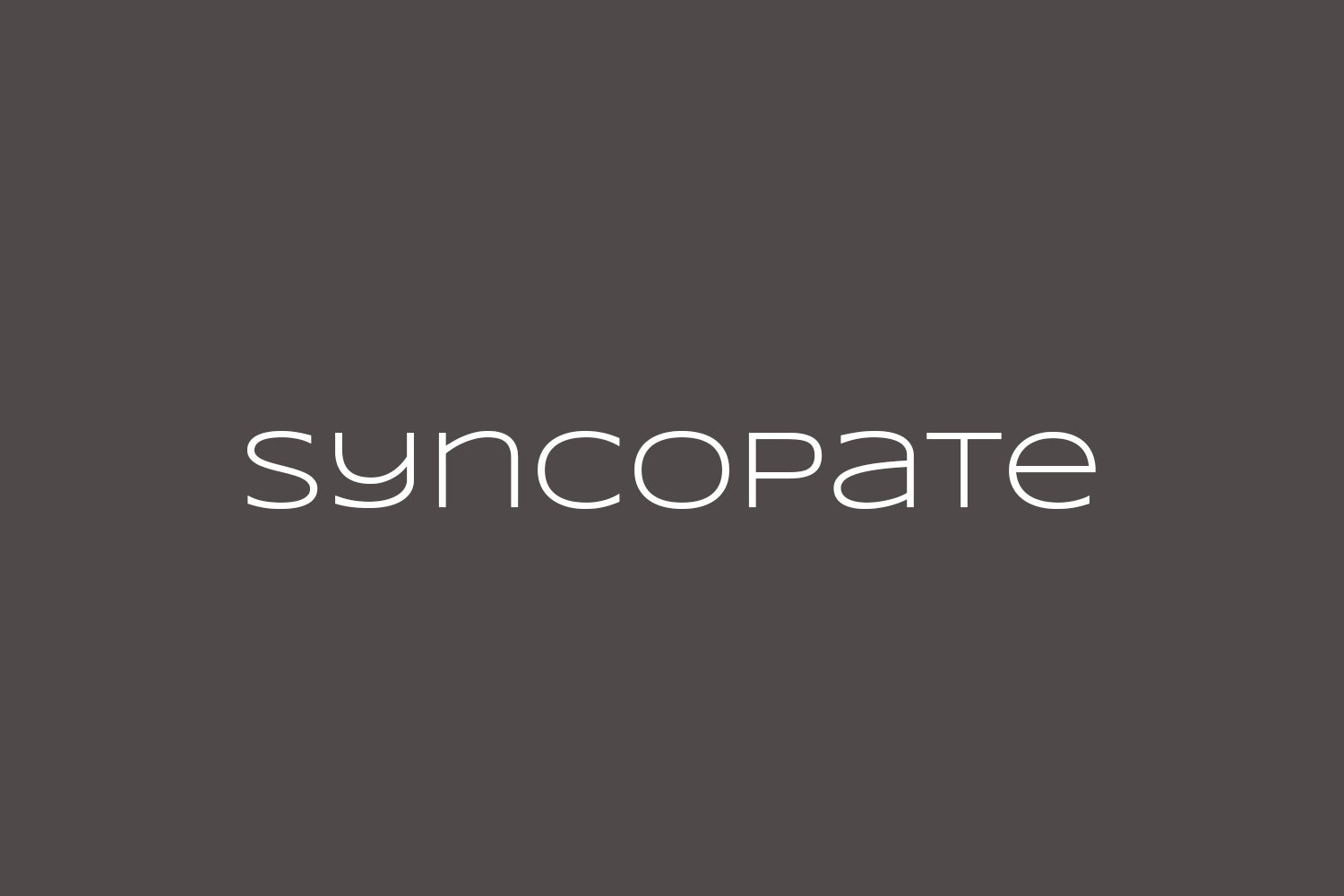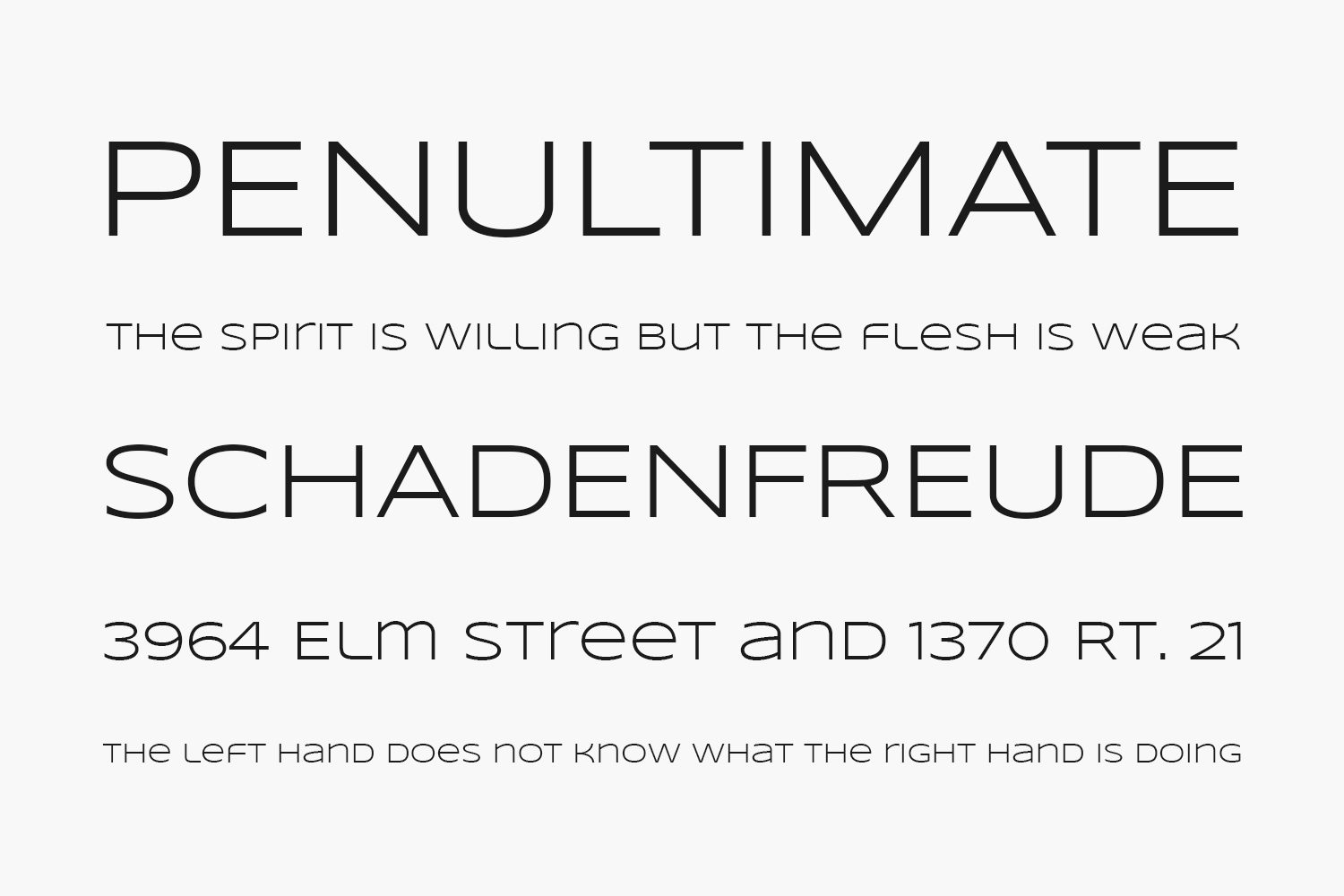
Syncopate Free Font was designed in 2010 as a headline and display typeface. Light in weight with a wide body width, it is a unicase design where the traditional lowercase x-height has been abandoned and a single uppercase height rules the design of all of the alpha and numeric glyphs.
Designed by Astigmatic